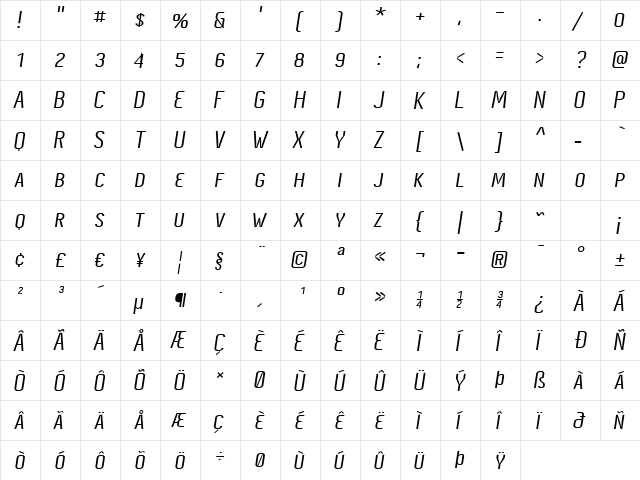
Cynapse Pro SC BoldItalic
Design Context for Cynapse Pro SC Typeface
Cynapse Pro SC takes a measured approach to typography — its balanced proportions and neutral character make it a reliable workhorse for both digital and print work. Its italic angle brings a sense of urgency and motion to the letterforms. The heavy weight commands attention and anchors typographic hierarchies.
Pro Tip: Use Cynapse Pro SC for emphasis, pull quotes, and subheadings where its slanted energy can add rhythm to the layout.